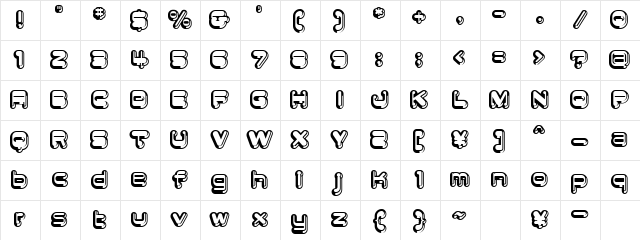
Button Regular Free Font
Button Regular
Design Context for Button
Button is a composed and adaptable typeface that performs quietly and consistently across a wide range of design contexts.